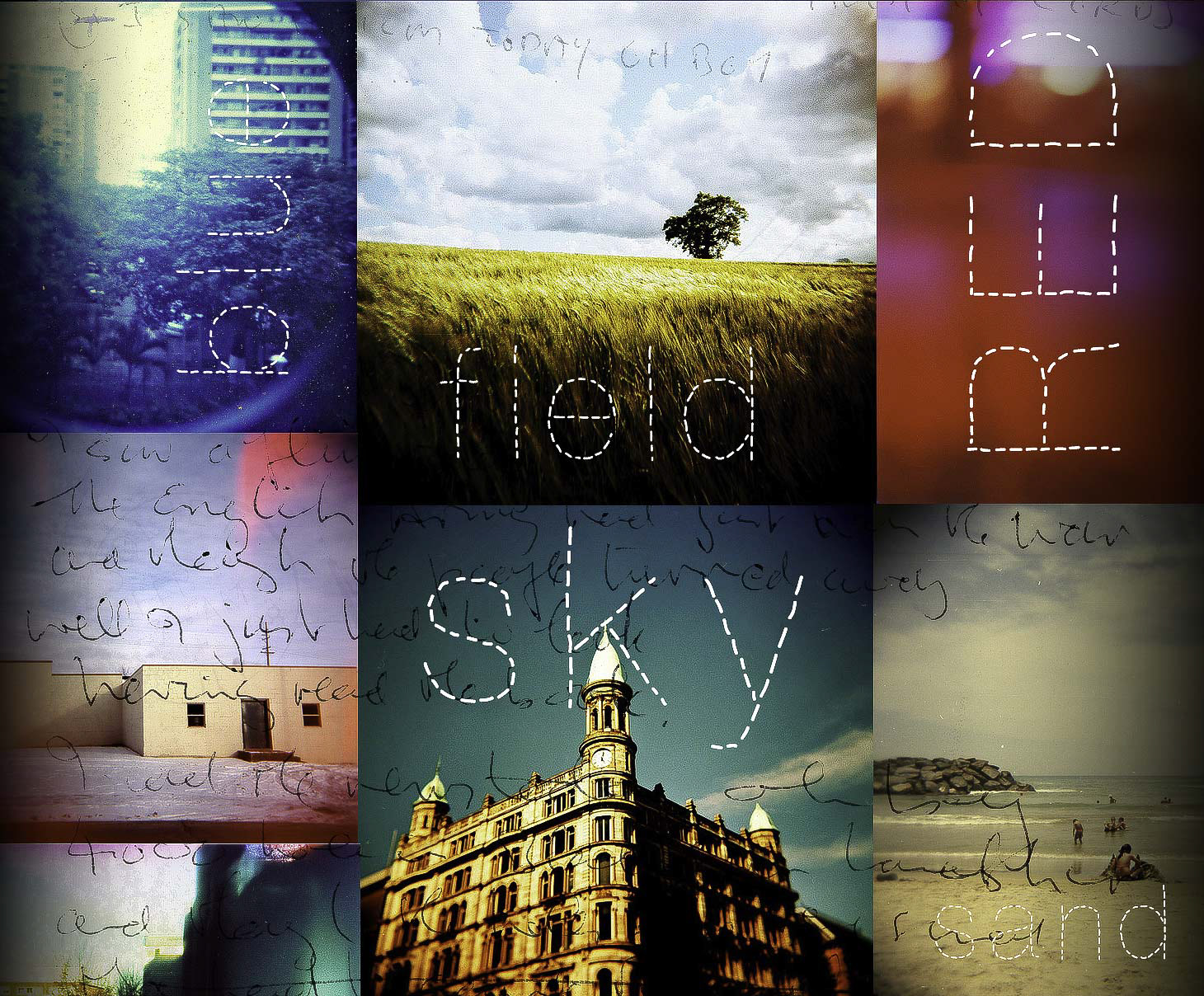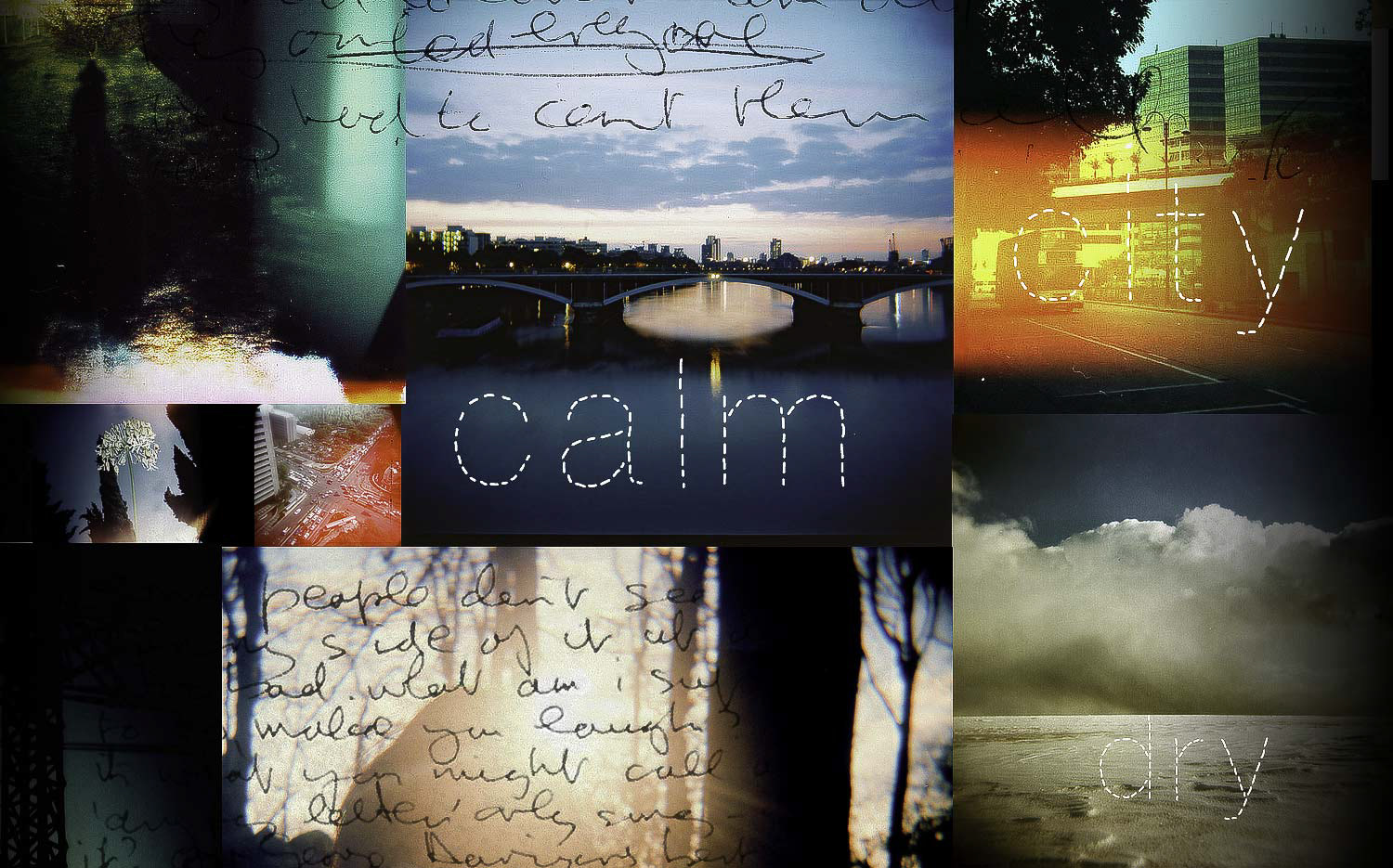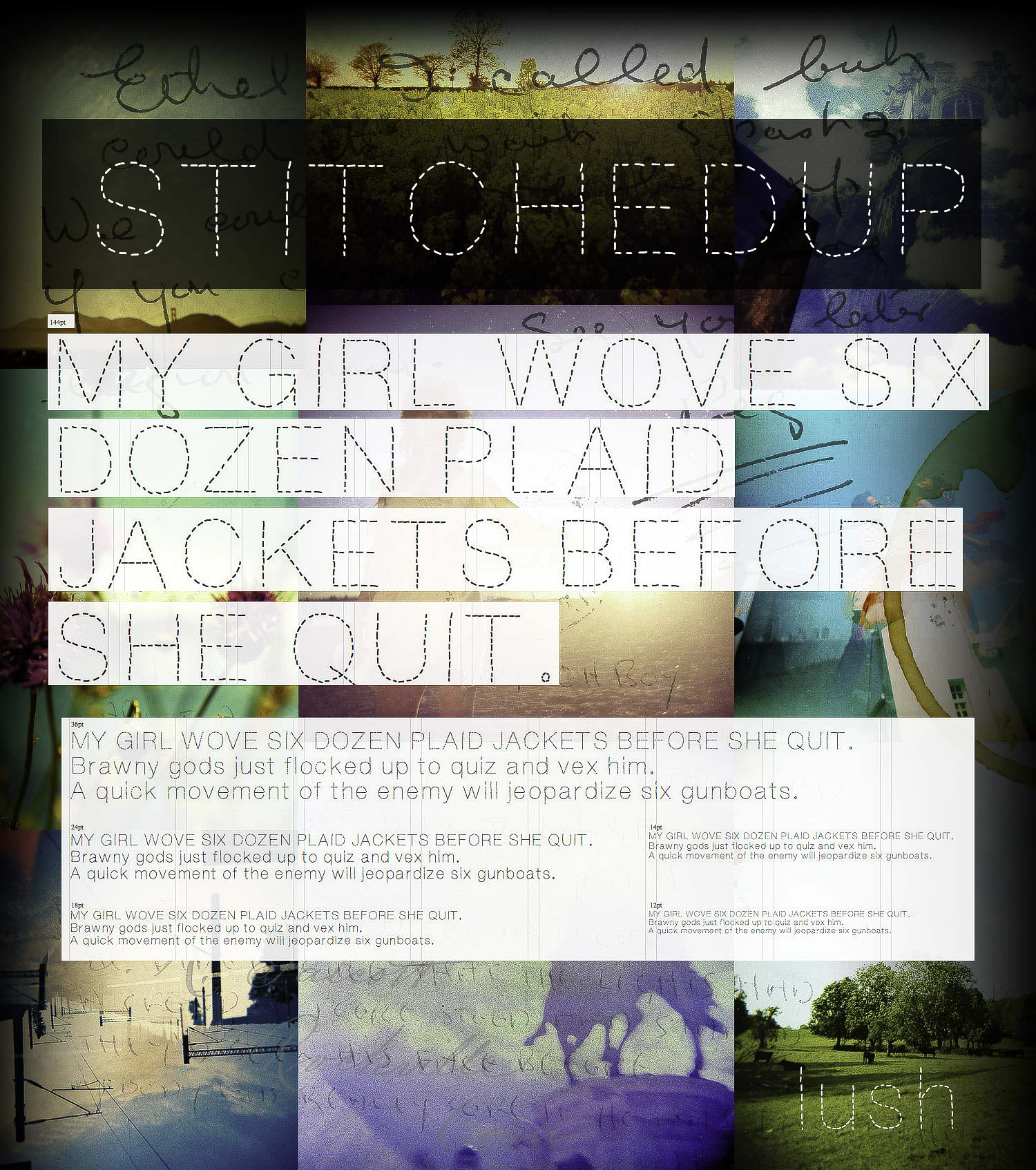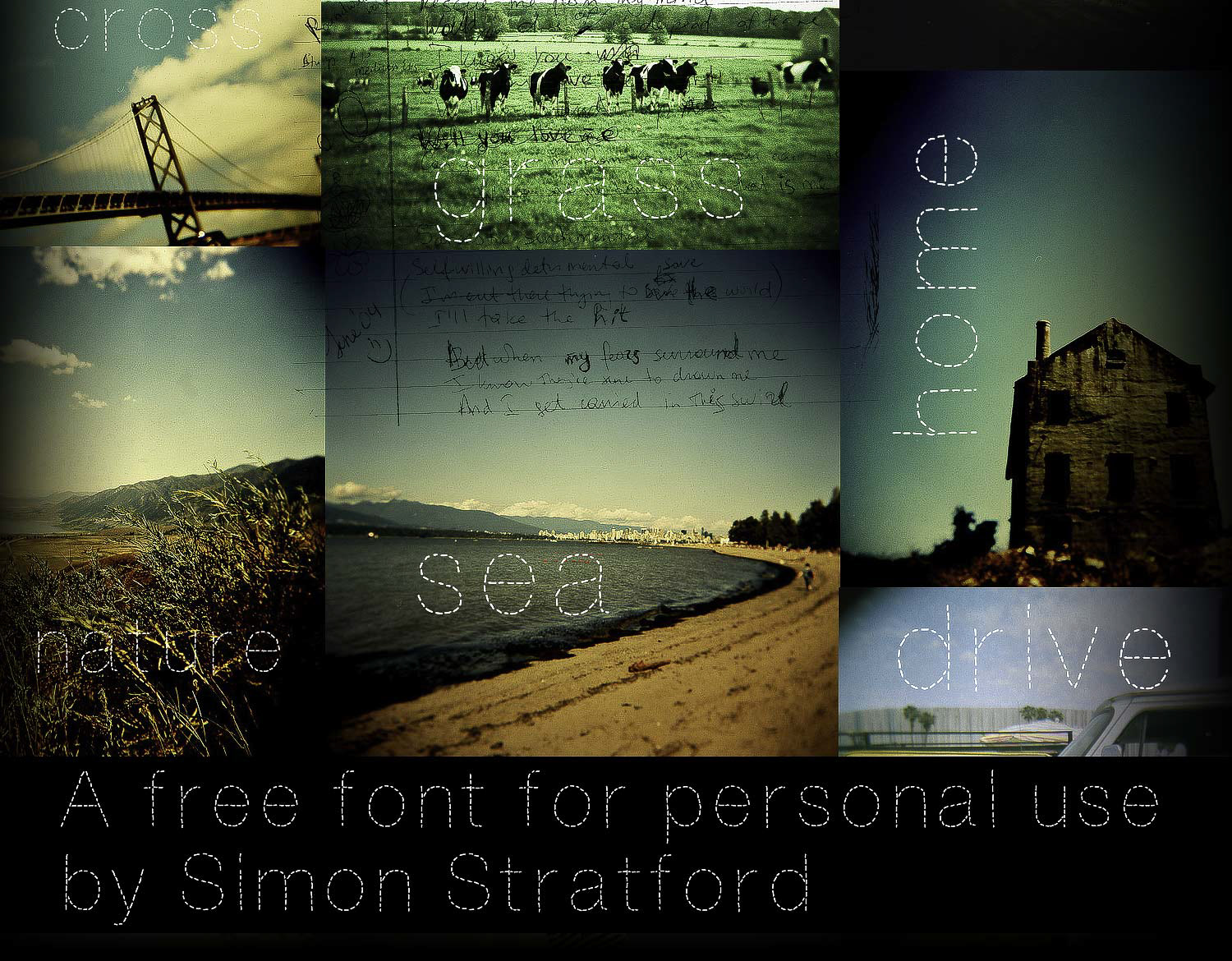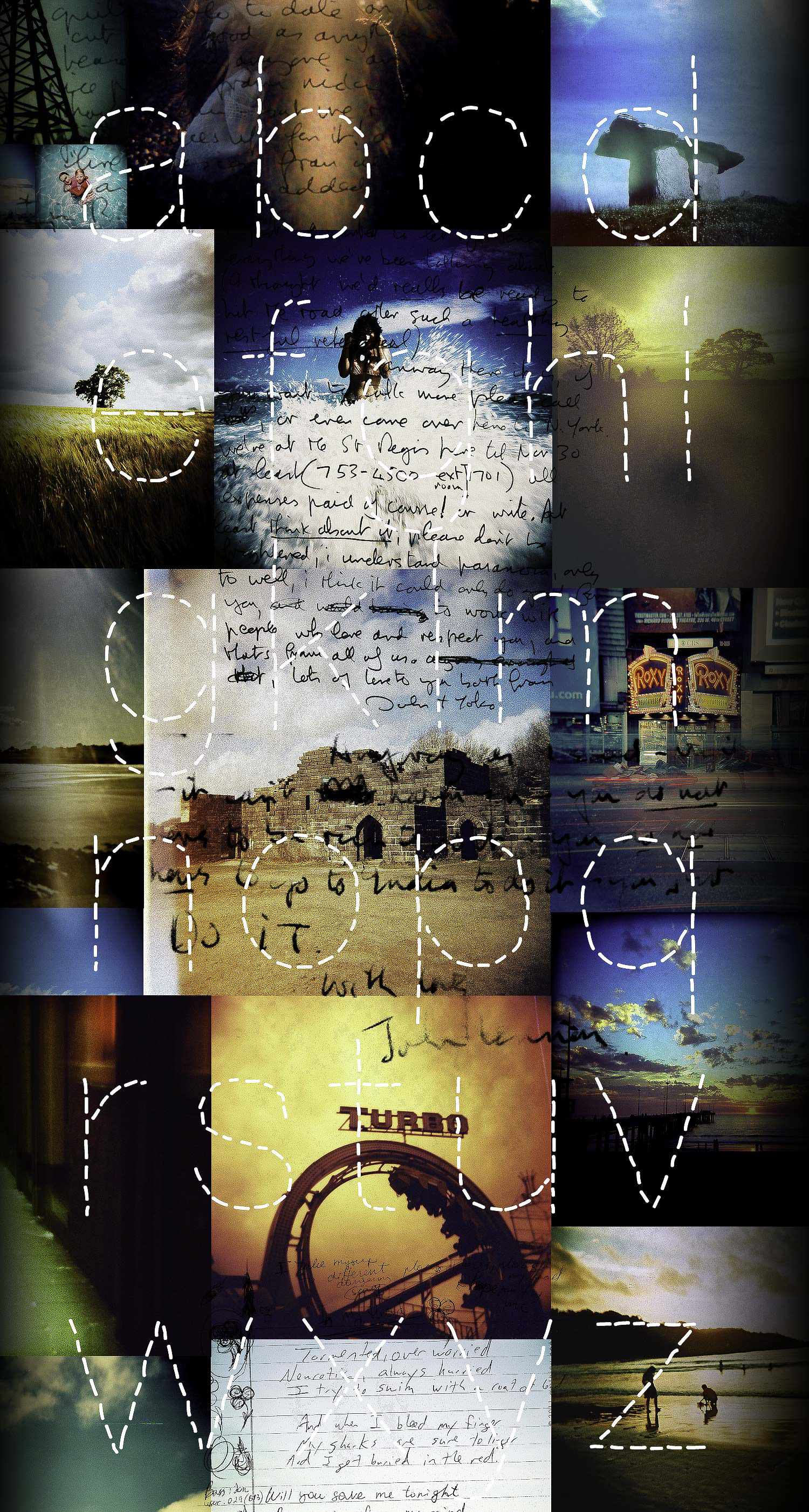
Stitchedup free typeface
A free font called StitchedUp by simon stratford
Stitched up a handdrawn typeface created by Simon Stratford. I did this on the tube on my way to and from work.